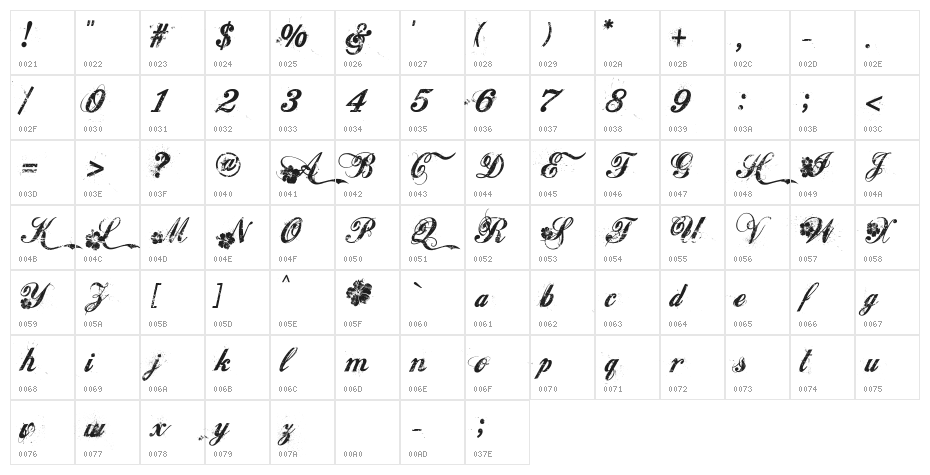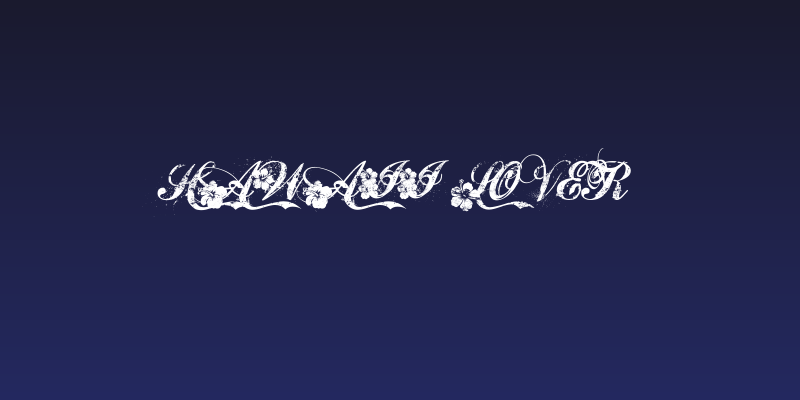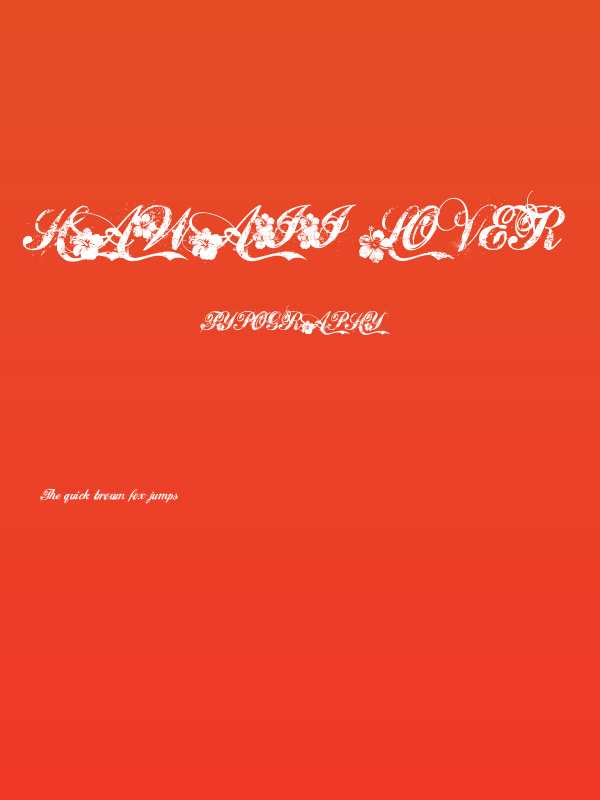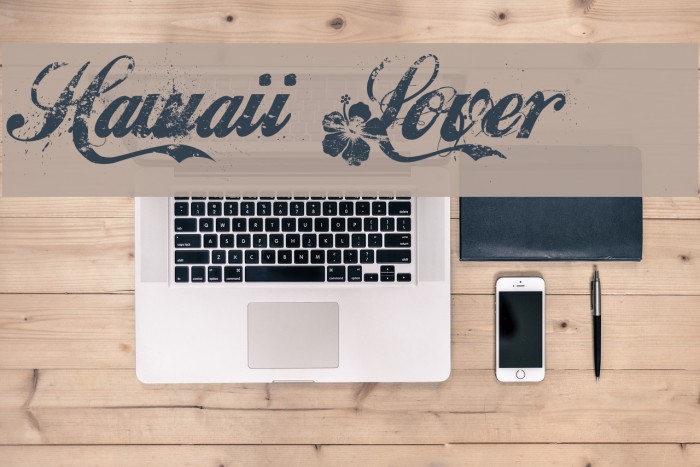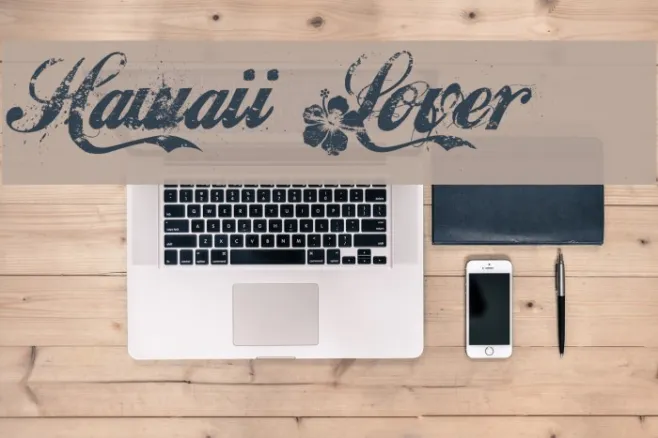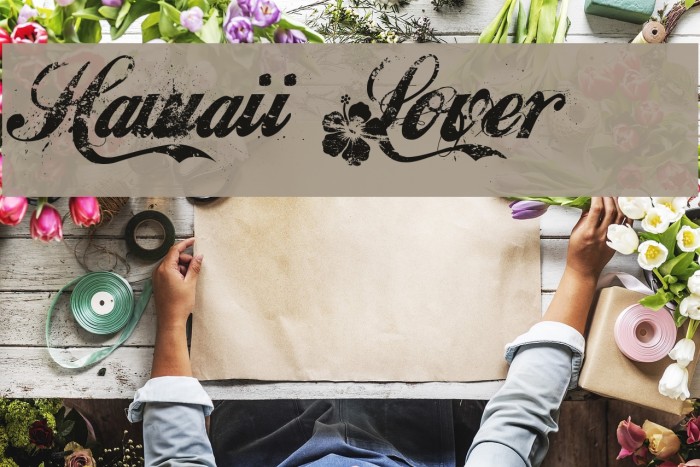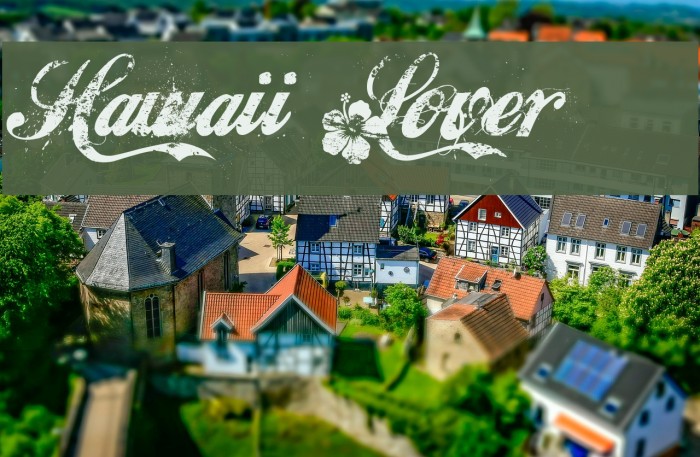
Hawaii Lover Font
Hawaii Lover Description
This font features an elaborate and decorative script style, characterized by its flowing, cursive letterforms and intricate embellishments. The uppercase letters are adorned with floral motifs, adding a tropical and exotic flair. The lowercase letters maintain a smooth, connected script appearance, enhancing the font's elegant and sophisticated look. The numerals and special characters are consistent with the overall decorative theme, making them suitable for artistic and creative projects. The font's distressed texture adds a vintage and rustic touch, making it ideal for designs that require a handcrafted or organic feel.
| Use Case | Logos, Invitations, Artistic Designs |
| Proposed Projects | Ideal for wedding invitations, greeting cards, branding for tropical-themed businesses, and artistic posters. |